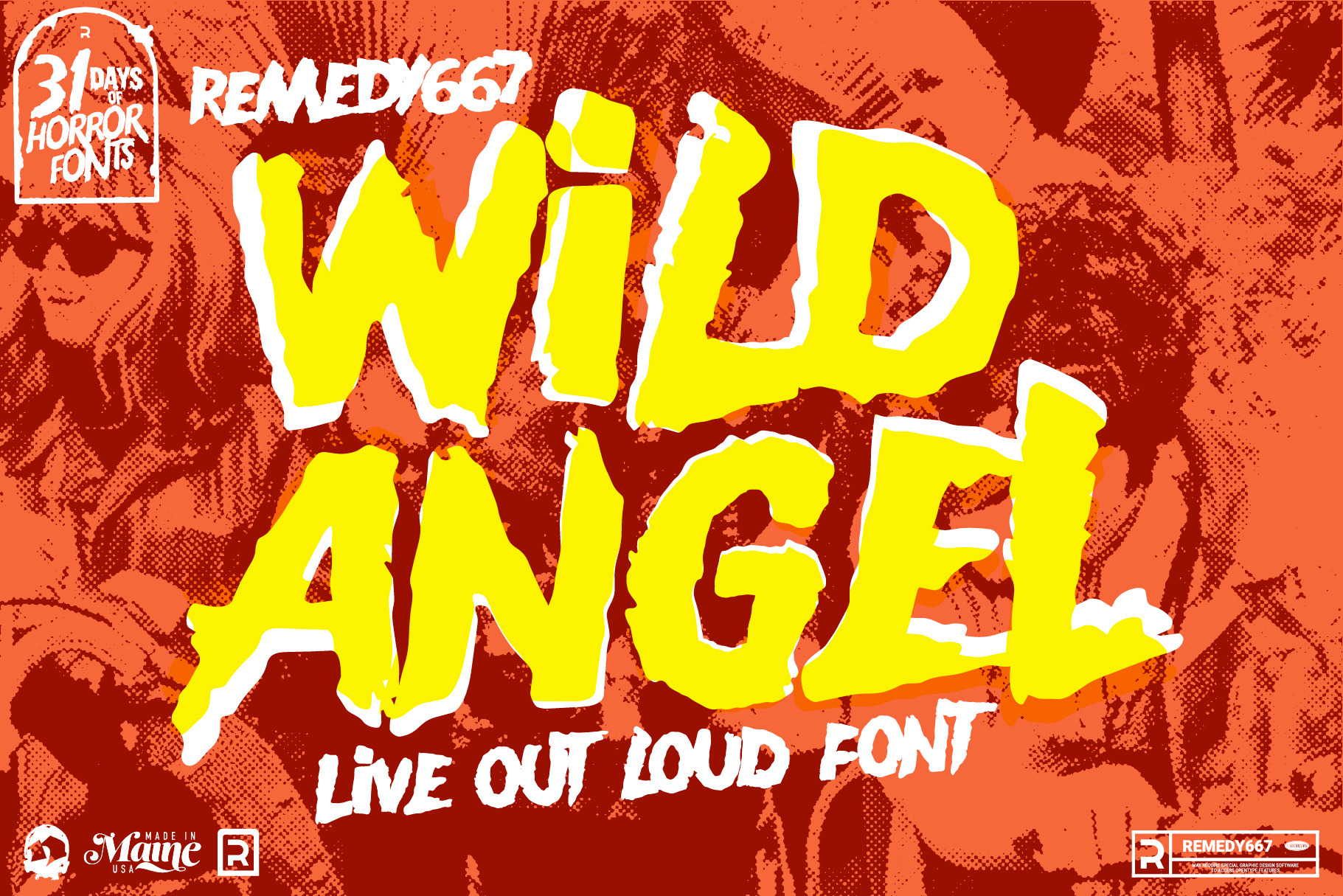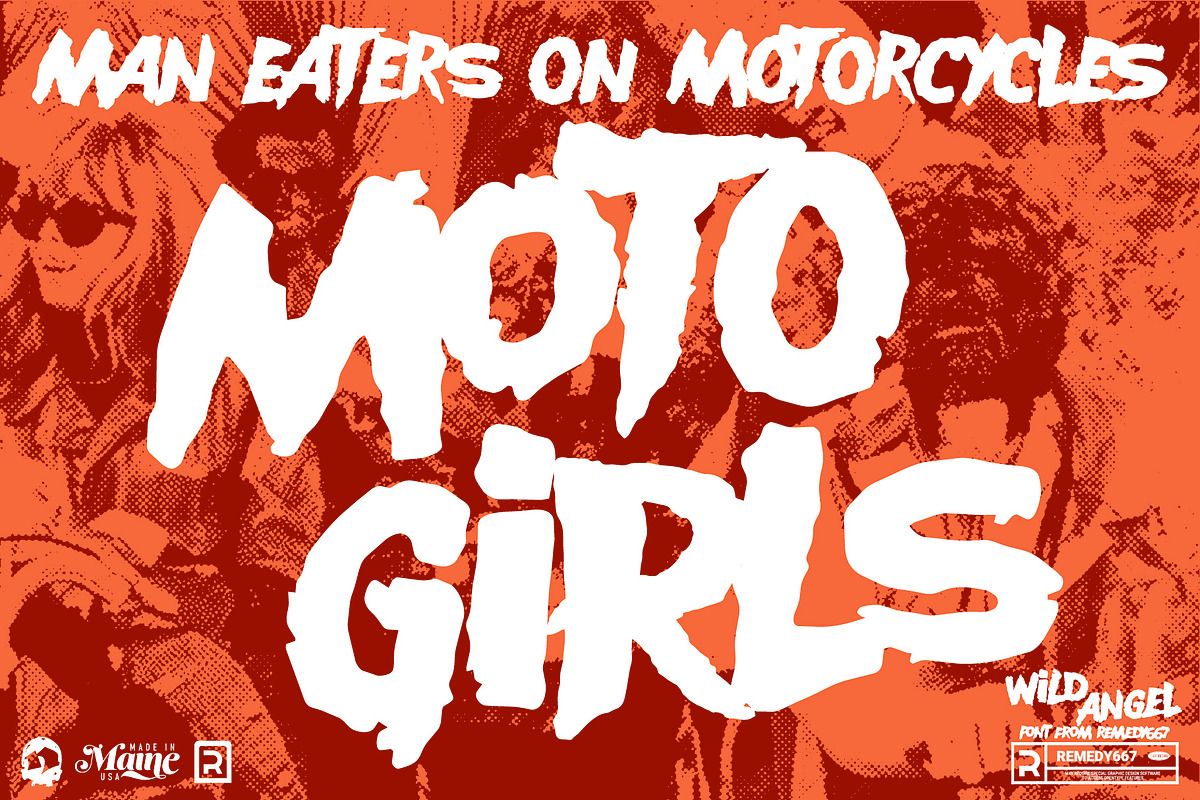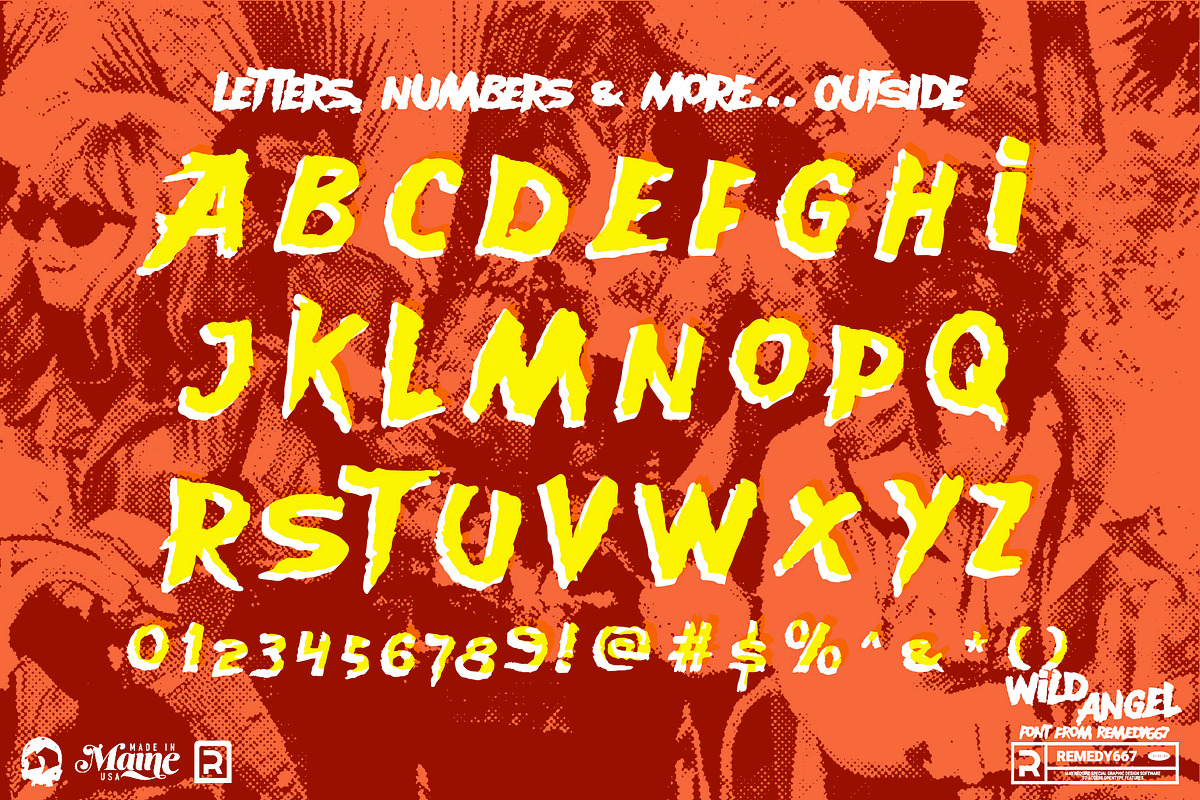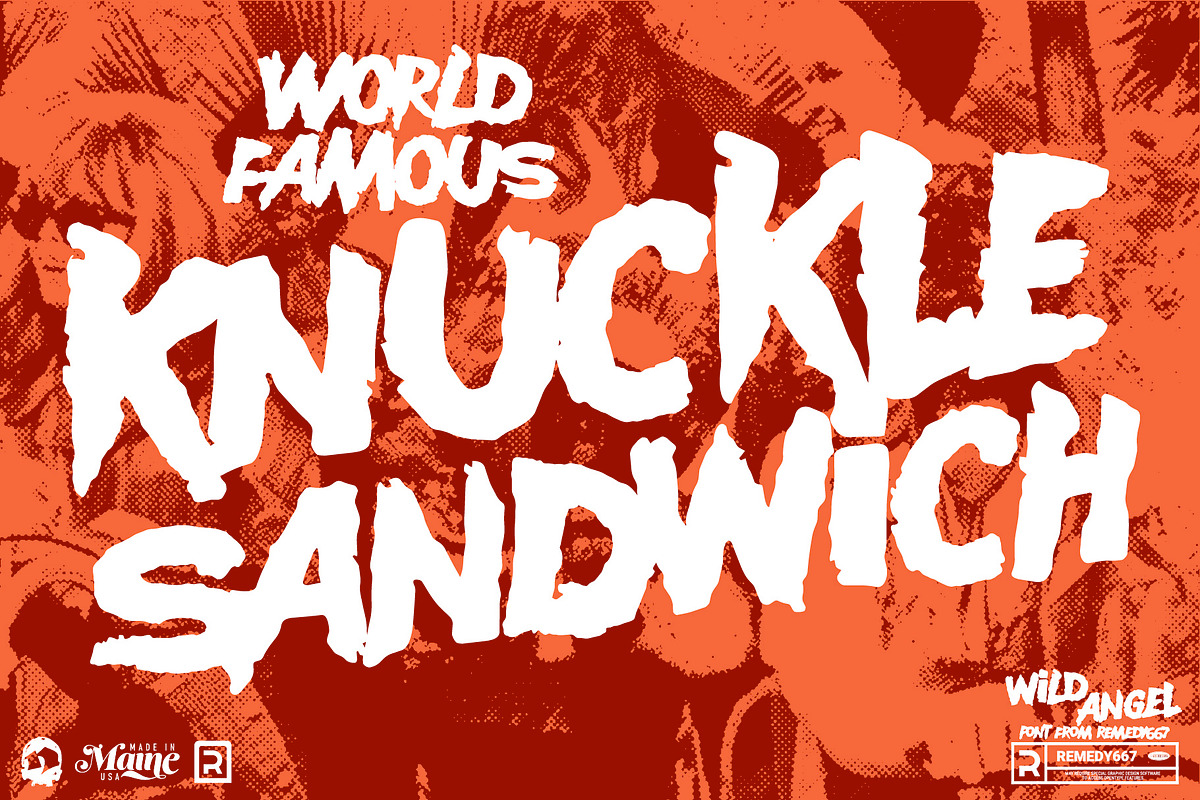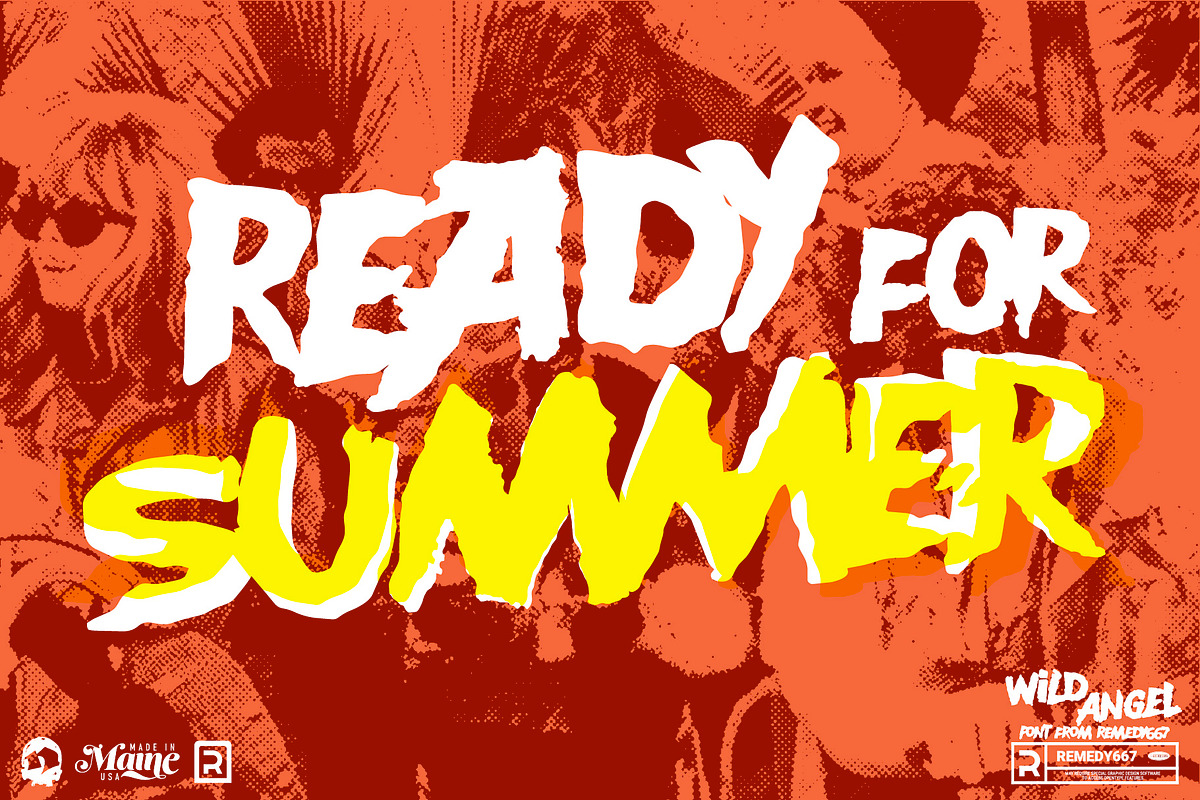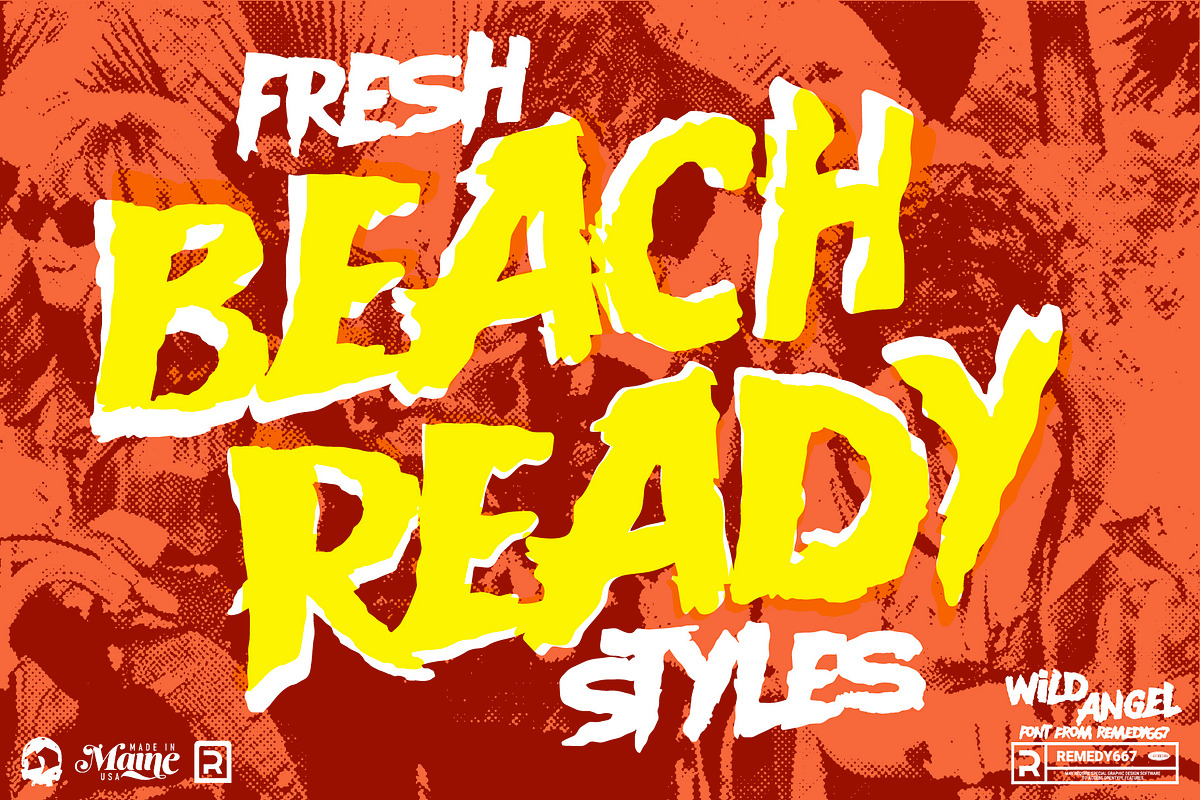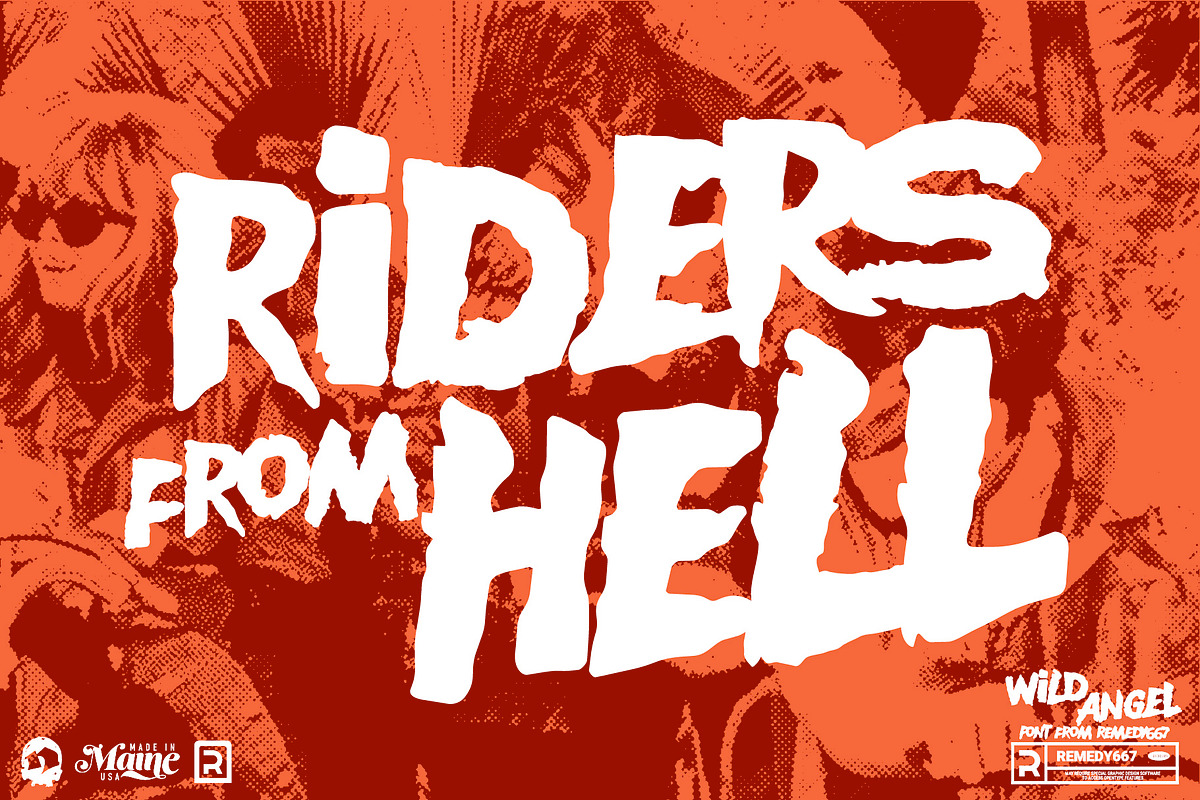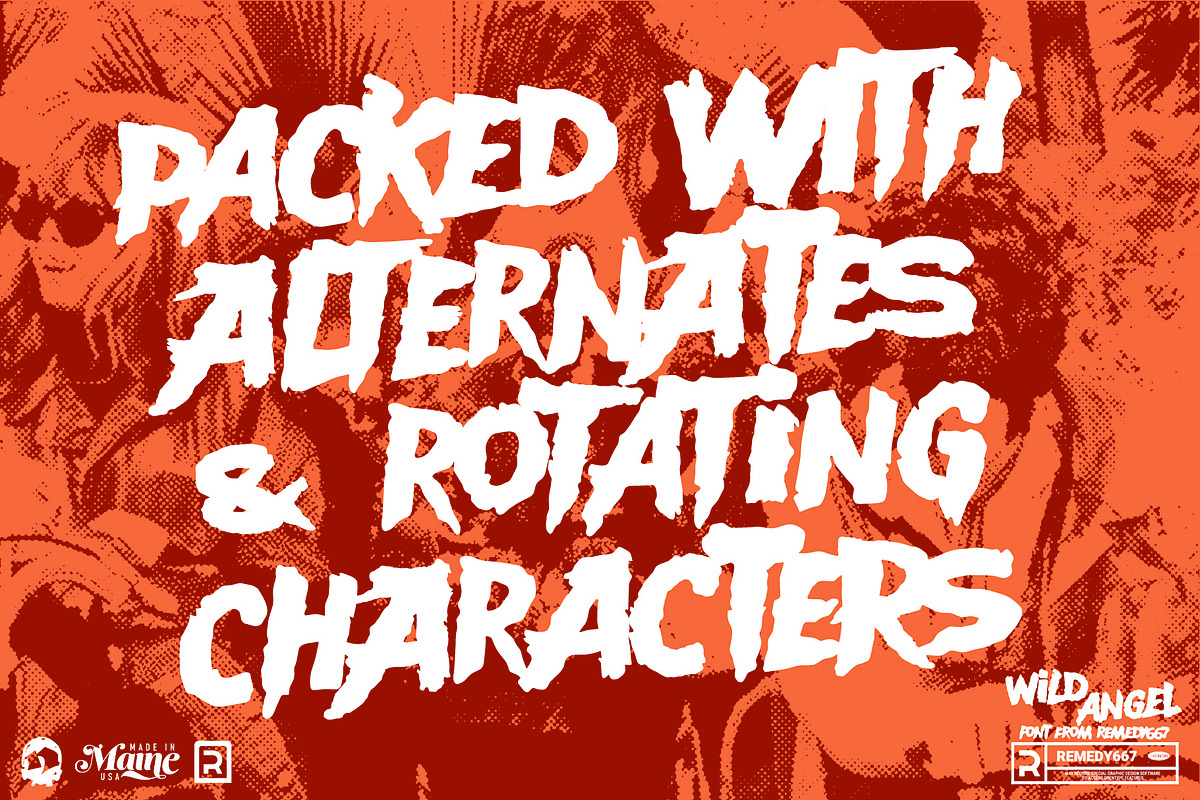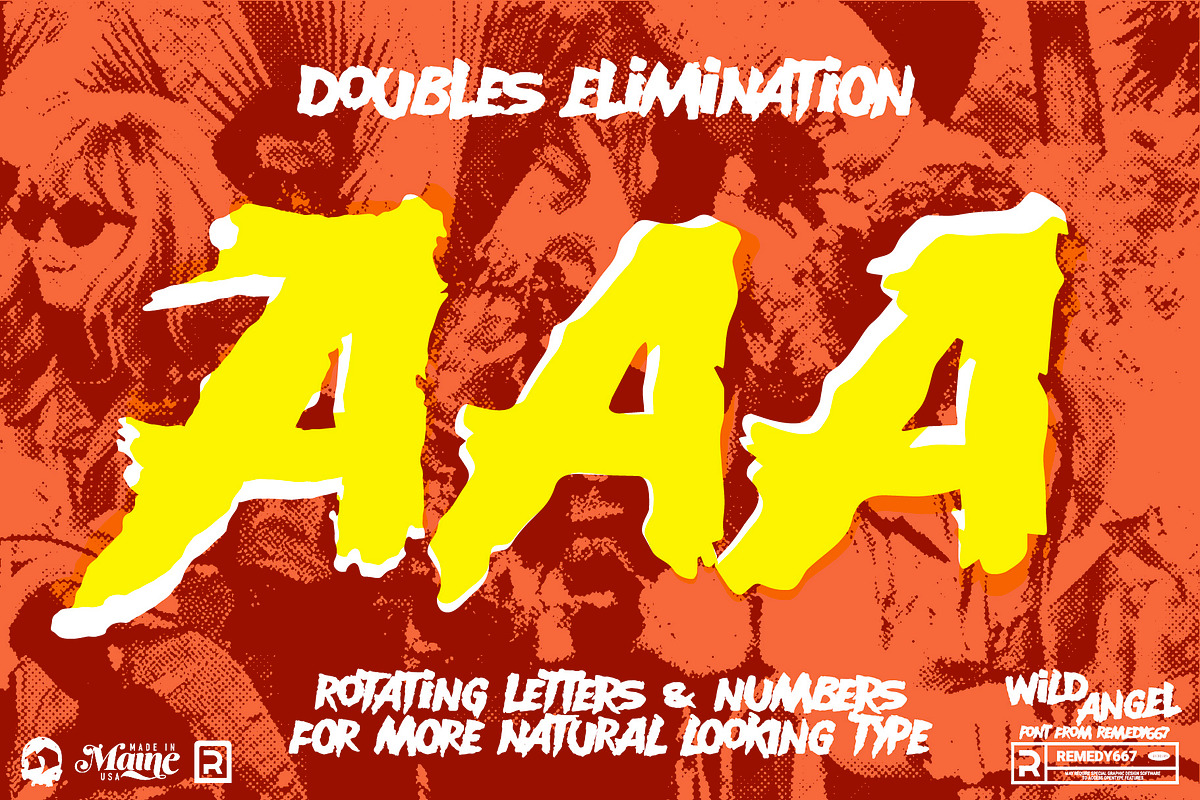
Wild Agel - Summertime Biker Font
Rev your engines, Wild Angel tears down the highway straight from the screens of 1960s and 70s biker films. Bringing with it the rebellious spirit of roaring motorcycles, pulp magazines, and sun-baked Americana. The bold letterforms of Wild Angel will grab your audience’s attention so fast, they’ll leave tire marks.
Perfect for hot rod graphics, biker-inspired branding, and summertime promotions. Wild Angel blends classic pulp energy with expressive readability. Its rotating characters keep your text feeling natural and hand-crafted. Make every headline look brash and bold like a speeding chopper, with Wild Angel.
Inspired by the trailer lettering of The Wild Angels (1966)
Perfect for hot rod, motorcycle, and vintage Americana projects
Rotating characters for natural, hand-crafted variation
Multilingual support for worldwide cruising